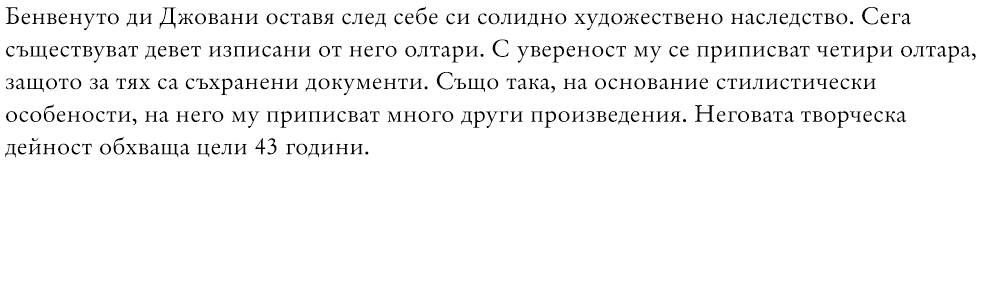
Choosing a typeface for a book
I have recently started helping a professor at my uni with the design of his book, which is a 500+ pages study on the architecture of high-rise buildings. I really want to make things look very neat, and here's a list of typefaces I might or might not use for the body text:
• Minion Pro
• Garamond Premier Pro
• Warnock Pro
• ITC New Veljovic Pro
• Times Ten LT Std
• FF Meta Serif Pro
• FF Meta Pro
• Whitney
Probably some of them are a big no-no when it comes to body text, but I'm not very sure. My options are limited to fonts that have cyrillic characters.
I have attached a PDF file (and here's a jpg also) with a sample paragraph (the language is Bulgarian), set with each typeface, and I need your advice on what will work best. Any help will be greatly appreciated!
Your choice depends on what is best for the subject matter and then your aesthetic preferences.  What is the subject of the book and which typeface speaks to that?
All the typefaces you mention have a so-called “humanistic” letter-skeleton and can be used for copy text. So they will all work more or less. The real question is: do they fit the overall design concept of the book? What does a page look like? Is there another headline font?
You may find something appropriate in this small selection I've curated for you. Lyon would be my go-to for something on architecture because it's style fits the subject matter so well.
Adding to others’ advice:
• I don’t read languages written in Cyrillic, but for a 500-pages study, if written with Latin alphabet, I would choose a serif typeface for the main text, using a sans serif for shorter texts like caption, titles, and headlines (in this regard, a type system like Meta could prove useful). Of course it also depends on how many illustrations there are, and on how they’re handled.
• That said, something like Garamond or Warnock look too much “old style” for a book about high-rise buildings past ziggurats.
• You may want to use a typeface which acknowledge the specific conventions of Bulgarian Cyrillic.
Seems like I should've made some decisions on the grid/layout and overall tone first!
@Mycroft, thanks for the selection! From what I understand, your preference is towards geometric sans serifs, with a smaller x-height, looking a little art deco-ish. It does make a lot of sense to use these on an architectural book, but since my choice is limited to cyrillic-supporting typefaces only, I'll look into alternatives.
@Riccardo Sartori, Very few typefaces have the Bulgarian cyrillic — off the top of my head, those by Fontfabric (the only Bulgarian foundry). It is nice indeed, to have such cyrillic characters, but since it limits the options so much, I don't think it'd be suitable.
Very few typefaces have the Bulgarian cyrillic — off the top of my head, those by Fontfabric (the only Bulgarian foundry). ​
The biggest and better known Bulgarian foundry, for sure, but not the only one. And there are Bulgarian type designers, not necessarily based in Bulgaria, who still like to add some Bulgarian flavour to their Cyrillic, sometimes resulting in puzzling results for the user (I’m not saying that Ropa would be a good choice for your book, nor that there are many Bulgarian text typefaces, but the offerings aren’t so limited as it could seem at a first glance).
Another thing that could be investigated are typefaces with a locl OpenType feature for Bulgarian (I think I remember someone did it, perhaps it was Typonine, but perhaps just for Macedonian).
All that said, the first concern should be of course choosing a good, legible typeface.
You might want to look into Paratype fonts - it's a Russian company, so all their fonts support Cyrillic. For instance, I personally prefer their Original Garamond typeface compared to any other Garamond variations - for its neatly balanced stroke weight. (though that exact typeface might look a bit archaic given the subject).